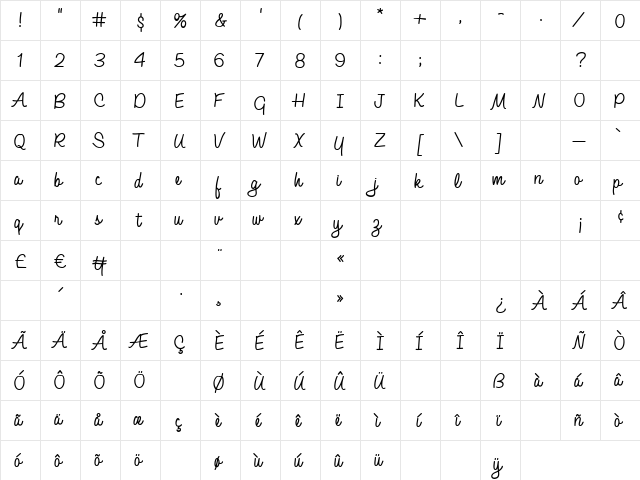
RollingBallCursive Regular
Design Context for RollingBallCursive Typeface
RollingBallCursive flows with the natural rhythm of handwritten lettering, making it ideal for designs that call for warmth and personal expression.
Font Pairing: Combine RollingBallCursive with a simple geometric sans for maximum contrast — the tension between flowing curves and clean structure is a classic typographic pairing.
Pro Tip: Use RollingBallCursive for short runs of text — names, titles, or taglines. Extended body copy in script faces tires the eye quickly.